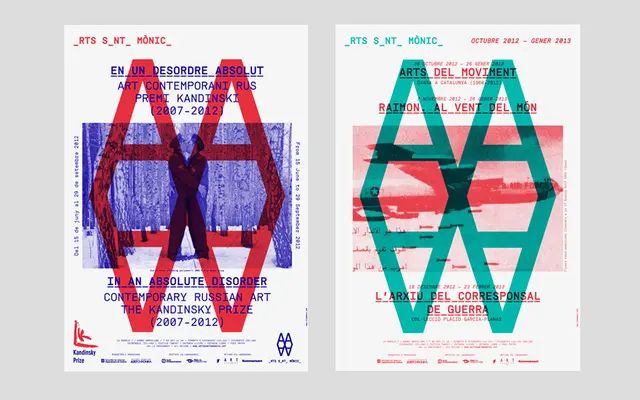
ASM
Extra Type · 2008
Originally commissioned as the corporate typeface for Arts Santa Mònica in Barcelona, this monospaced face ran from 2008 to 2013 before becoming commercially available.
Designed as a bespoke identity typeface for the Arts Santa Mònica cultural centre in Barcelona, ASM is an energetic monospaced design offered in two weights with matching italics. A secondary subfamily, ASM UD, includes an underlined variant that replicated specific applications from the original corporate rollout. Eight styles in total cover Regular and Bold across both subfamilies.
ASM is explicitly described as a monospaced typeface, designed as a corporate identity font with fixed-width letterforms across all styles.